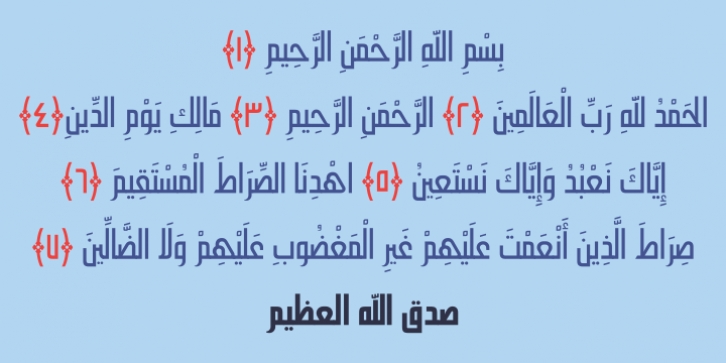
Hasan Alquds Unicode downloadDesigner: Hasan Abu Afash,
Publisher: Hiba Studio
Hasan Alquds Unicode is an Arabic display typeface. It is useful for titles and graphic projects where a contemporary, streamlined look is desired. The font is based on the simple lines of Kufi calligraphy, and the uniform slope of its strokes gives it a structured, geometric feel. It supported all scripts that used Arabic glyphs compatible with Unicode 4.2. Hasan Alquds is the first released typeface of collaboration between Hasan Abu Afash and Mamoun Sakkal.